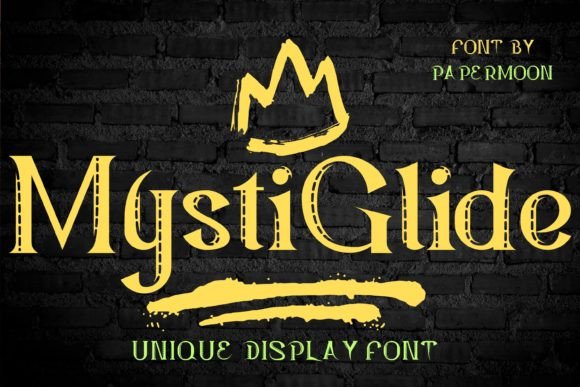
Unleash your creativity with MystiGlide, the captivating display font that blends vintage charm with a modern twist. Its bold letters exude a timeless feel, while the pointed edges and road strip effect add a touch of edginess that's sure to leave a lasting impression. Immerse yourself in this versatile typeface, perfect for breathing life into your designs.
Dive into the world of antique shops, where MystiGlide's allure complements the charm of aged treasures. Weave it into architectural blueprints, where its bold strokes emphasize the precision of lines. Let it dance across handcrafted creations, adding a touch of playful elegance. From culinary delights to immersive gaming experiences, this font is your trusty companion, effortlessly enhancing visual appeal.
Transport yourself to the silver screen with MystiGlide, where it lends a cinematic touch to movie posters and captures the essence of bygone eras. In museums, it proudly showcases historical artifacts, evoking a sense of awe and wonder. Publishing houses find solace in its ability to convey stories with panache, while tailoring establishments appreciate its sophistication. From sleek technology brands to homeware havens, MystiGlide seamlessly adapts, elevating designs with its distinctive flair.